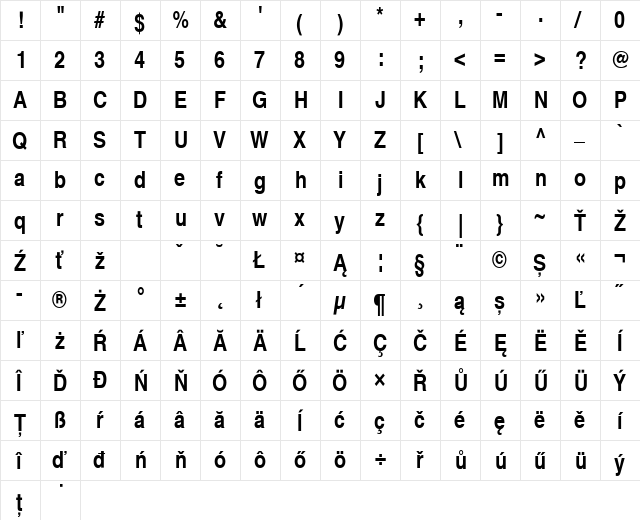
Helvetica Narrow CE Bold
Design Context for Helvetica Narrow CE Typeface
Helvetica Narrow CE takes a measured approach to typography — its balanced proportions and neutral character make it a reliable workhorse for both digital and print work. Its bold stroke weight gives it real presence on the page. The condensed width makes it efficient for tight spaces without sacrificing legibility.